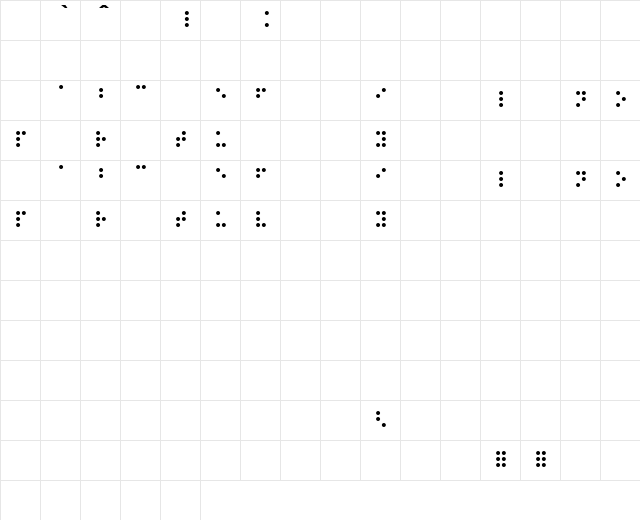
Complete XBraille E.JALLY Regular glyph index. Displaying only characters natively supported by XBraille E.JALLY Regular font.
XBraille E.JALLY is a composed and adaptable typeface that performs quietly and consistently across a wide range of design contexts.